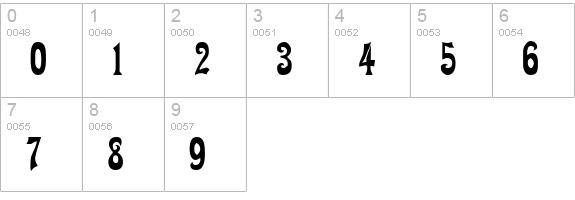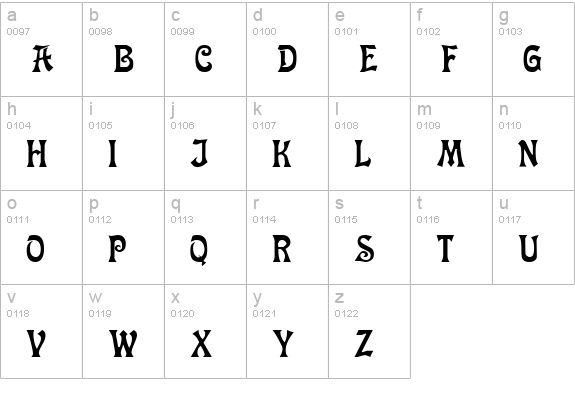
Cipango Font Details
The Cipango font is a beautifully designed typeface that combines elegance with readability. Its sleek lines and unique flourishes make it a perfect choice for a wide range of design projects. Whether you are creating a logo, branding materials, or a stylish website, Cipango will add a touch of sophistication to your work. What's more, the Cipango font is available for free download at FontsMarket.com. This means you can easily access this stunning font and use it in your projects without any cost. Don't miss out on this opportunity to enhance your designs with the exquisite Cipango font. Download it today and elevate your creative work to the next level.